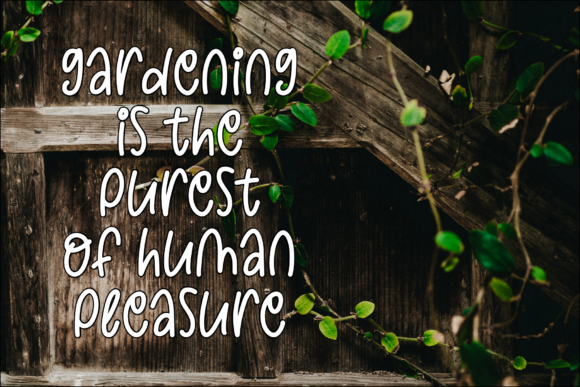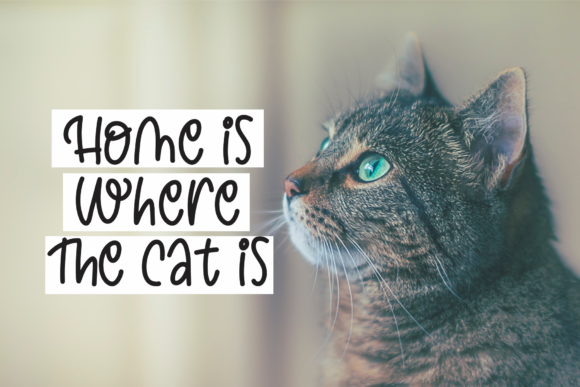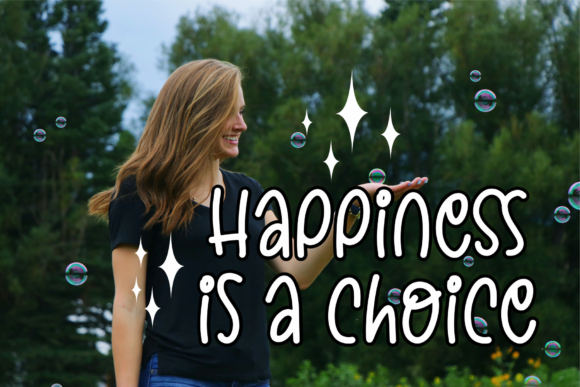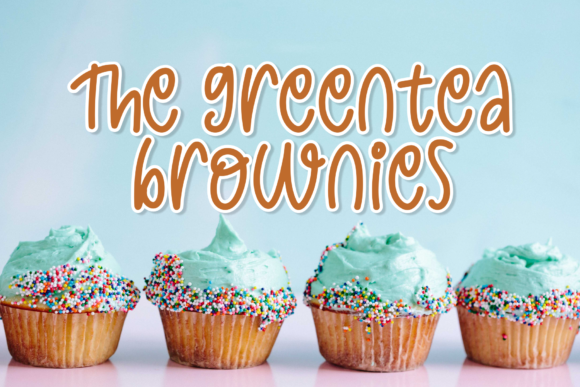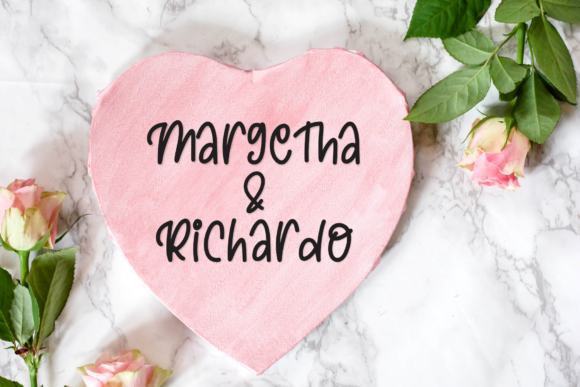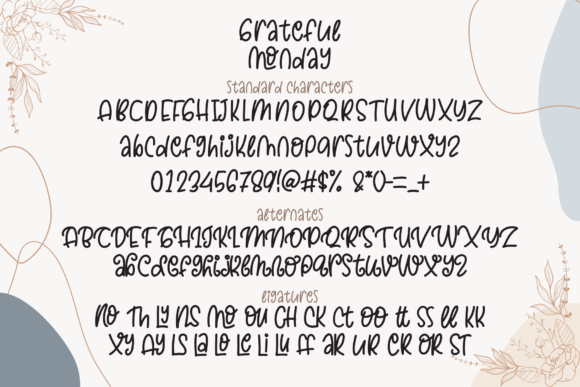
Grateful Monday Font: Add a Touch of Whimsy to Your Designs
Are you tired of using the same old fonts in your designs? Do you want to add a touch of personality and whimsy to your creations? Look no further than the Grateful Monday Font! This cute and quirky handwritten font is sure to take your designs to the next level.
What Makes Grateful Monday Font So Special?
Grateful Monday Font is a beautiful, handcrafted font that is full of character. Each letter has been carefully designed to have an incredible touch that will make your designs stand out. The font is perfect for designers and crafters who want to add a personal touch to their work.
Features of Grateful Monday Font
So, what makes Grateful Monday Font so special? Here are just a few of its amazing features:
- Handwritten with love: Grateful Monday Font is a true handwritten font, crafted with love and care to give it a personal touch.
- Cute and quirky: This font is perfect for designers who want to add a touch of whimsy to their designs.
- Many alternates and ligatures: Grateful Monday Font comes with many alternates and ligatures that will add a beautiful impression to your designs.
- Perfect for designs: Whether you’re creating a logo, a poster, or a social media graphic, Grateful Monday Font is the perfect choice.
Uses for Grateful Monday Font
So, what can you use Grateful Monday Font for? The possibilities are endless! Here are a few ideas to get you started:
- Branding and logos: Use Grateful Monday Font to create a unique and memorable logo for your business.
- Social media graphics: Add a touch of personality to your social media graphics with this fun and quirky font.
- Posters and flyers: Grateful Monday Font is perfect for creating eye-catching posters and flyers.
- Stationery and cards: Use this font to create beautiful stationery and cards that will make your friends and family smile.
Why Choose Grateful Monday Font?
So, why should you choose Grateful Monday Font for your designs? Here are just a few reasons:
- Unique and creative: This font is truly one-of-a-kind, and will add a touch of creativity to your designs.
- Easy to read: Despite its quirky nature, Grateful Monday Font is easy to read and understand.
- Versatile: This font can be used for a wide range of designs, from logos to social media graphics.
- High-quality: Grateful Monday Font is a high-quality font that is sure to impress.
| Font Name | Grateful Monday Font |
| Author | MJB Letters |
In conclusion, Grateful Monday Font is a beautiful and unique handwritten font that is perfect for designers and crafters who want to add a touch of personality to their designs. With its many alternates and ligatures, this font is sure to take your designs to the next level. So why wait? Download Grateful Monday Font today and start creating amazing designs!
| Feature | Benefit |
| Handwritten with love | Adds a personal touch to designs |
| Cute and quirky | Adds a touch of whimsy to designs |
| Many alternates and ligatures | Adds a beautiful impression to designs |
| Perfect for designs | Ideal for a wide range of design projects |